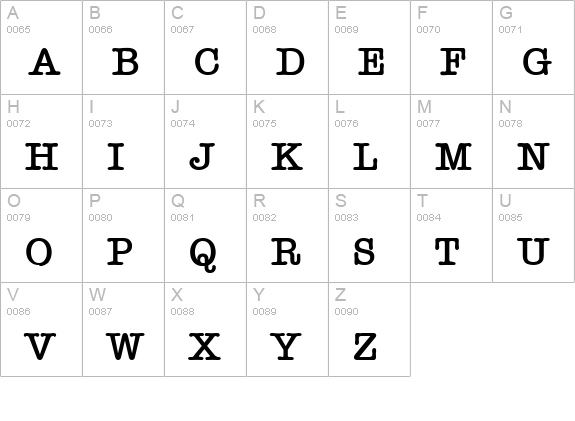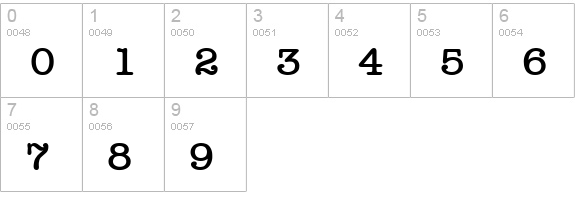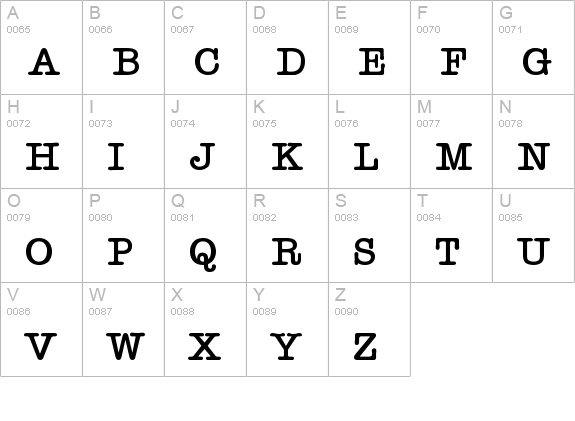
Headline Bold is a strong, high-contrast variant in the Headline typeface family \xE2\x80\x94 well suited to headlines, attention-grabbing titles, and strong calls-to-action.
Introducing Headline Bold, a striking and captivating font that commands attention with its bold and powerful presence. Designed for maximum impact, this font is perfect for headlines, titles, and eye-catching designs that need to make a statement. Headline Bold features strong, thick strokes that create a sense of authority and confidence. Its clean and modern design ensures legibility, even at smaller sizes, making it versatile for a wide range of projects. But what sets Headline Bold apart is that it is not only visually stunning, but also free to download! That's right, you can get your hands on this remarkable font without spending a dime. Head over to FontsMarket.com to freely access and download Headline Bold today. Whether you're a graphic designer, a blogger, or simply someone looking to add a touch of boldness to your next project, Headline Bold is the perfect choice. Its versatility and availability make it a must-have font in your collection. So why wait? Don't miss out on this incredible opportunity to elevate your designs with Headline Bold. Download it for free at FontsMarket.com and discover the power of bold typography.